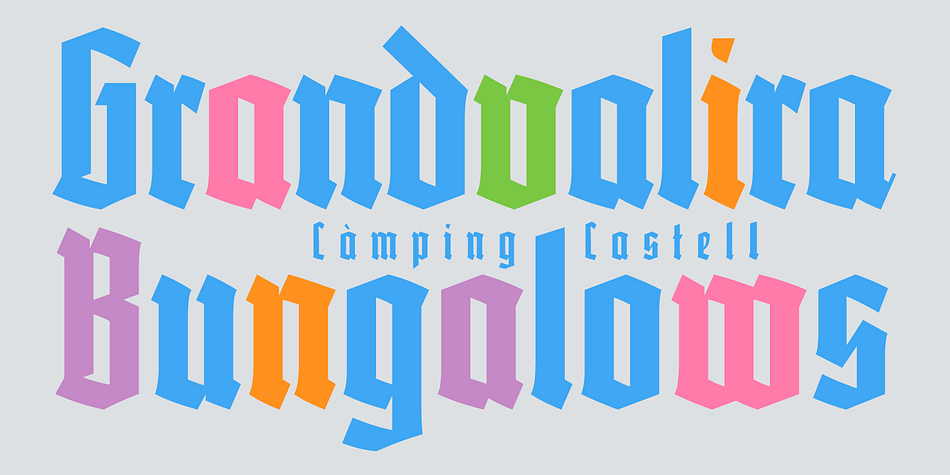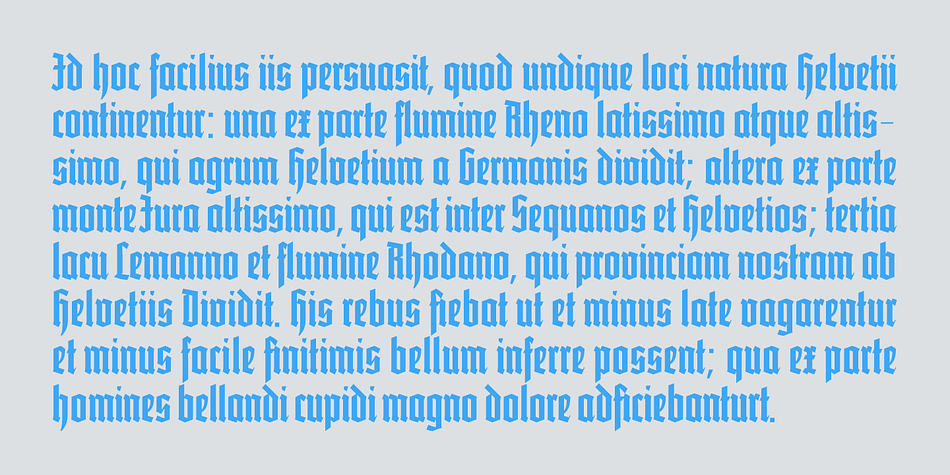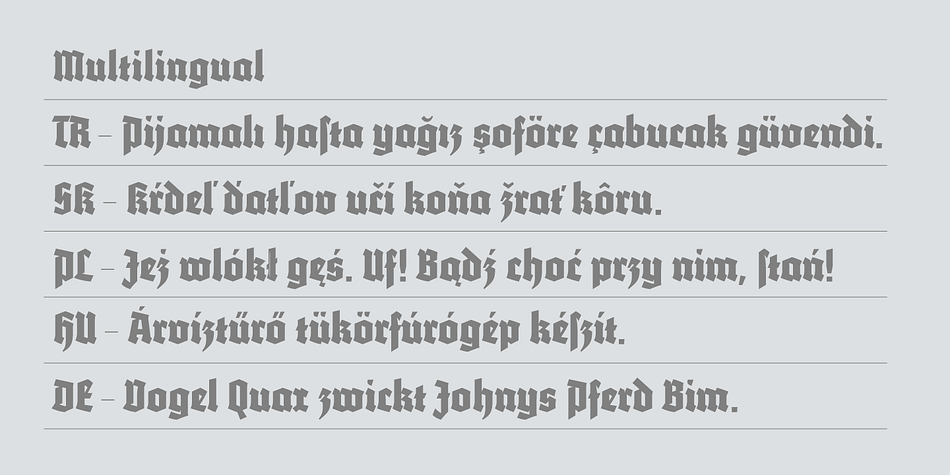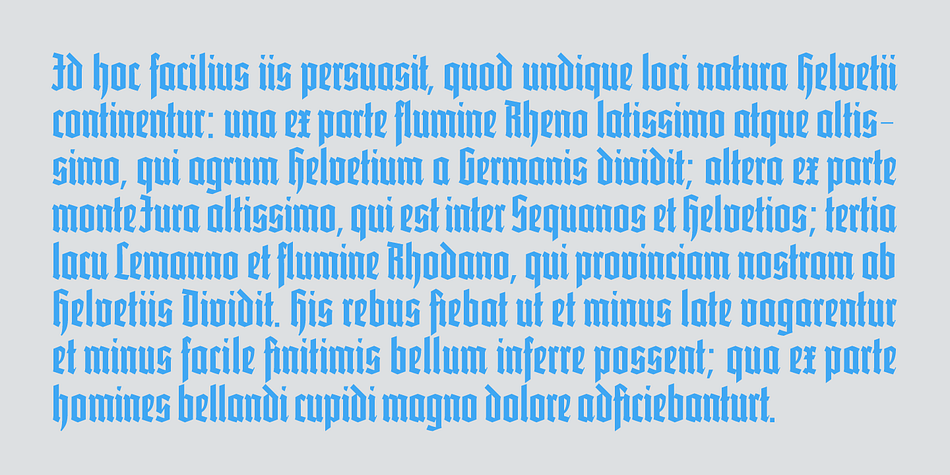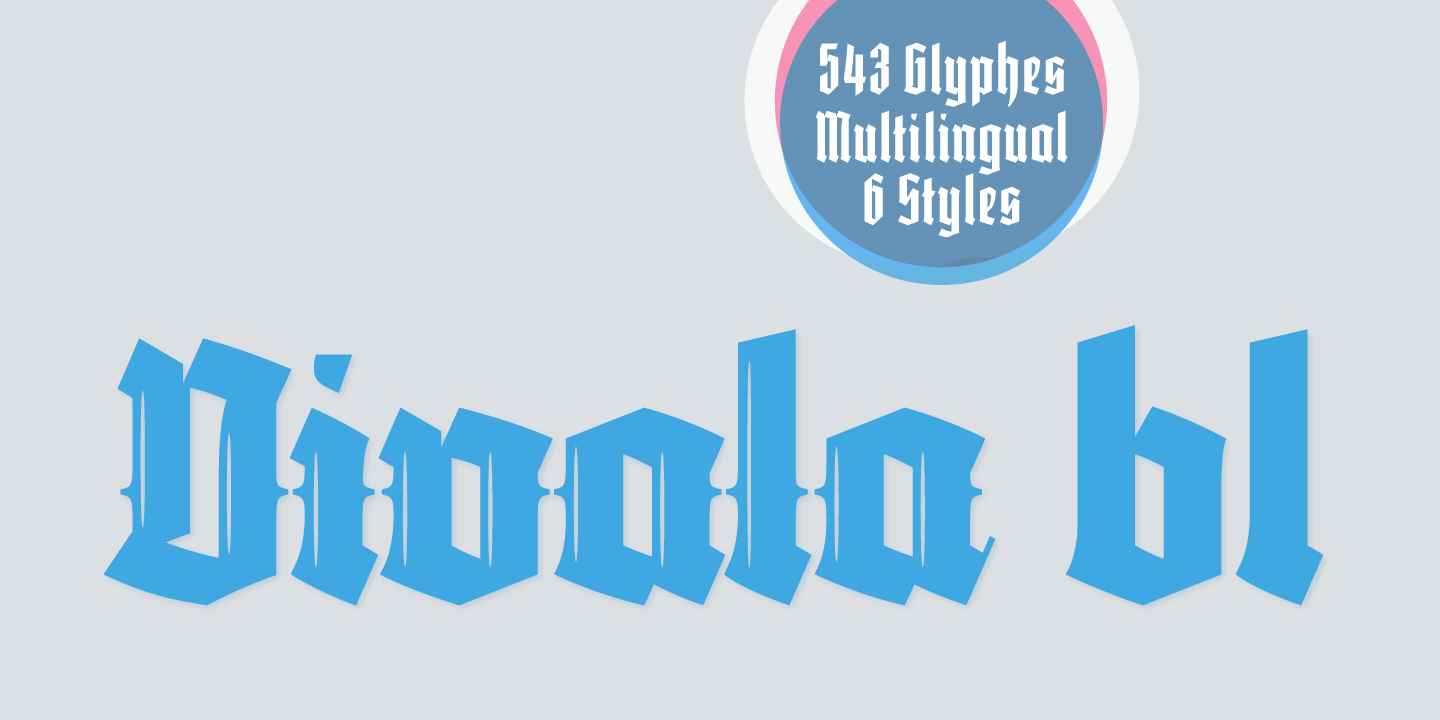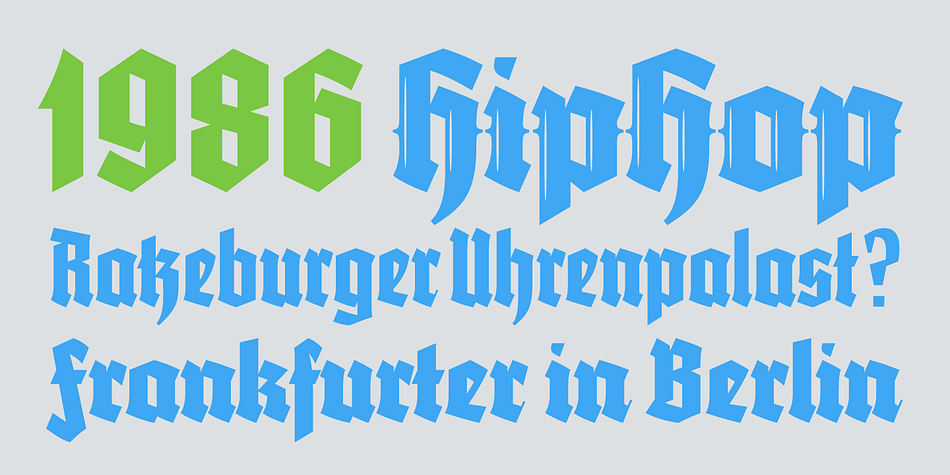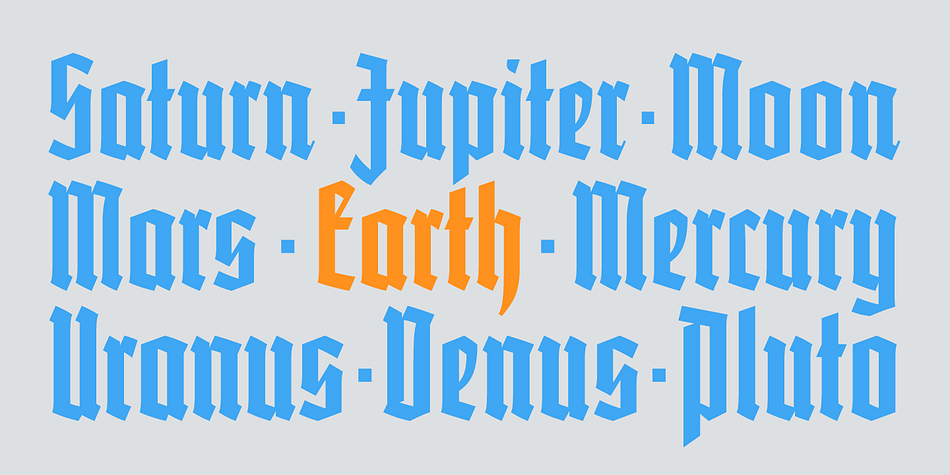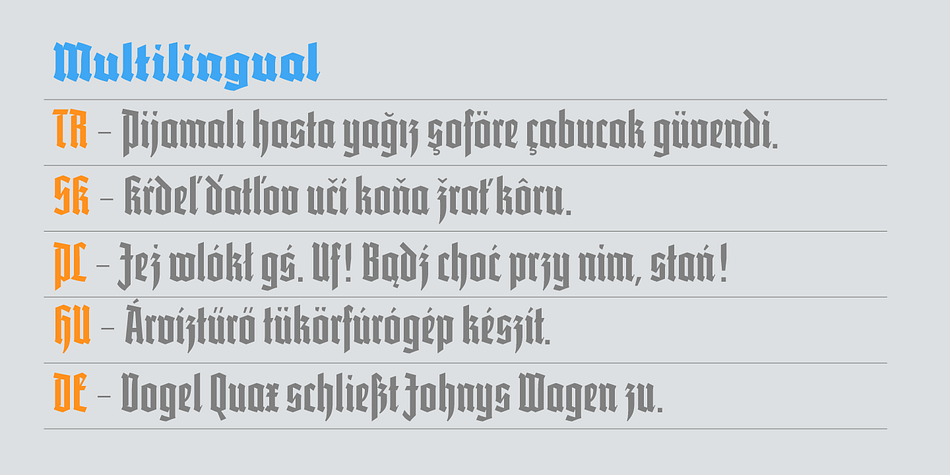
Vivala bl
Designed by Johannes Hoffmann, Vivala bl is a blackletter font family. This typeface has six styles and was published by Johannes Hoffmann.
Vivala bl has a high black ratio that supports a compact typographic style. It is particularly suitable for decorative typesetting, for example, for posters, logos, and book illustrations. Complementing the ornamental style, Black Letter has a narrow style that works well for smaller type sizes. And it is equipped with various contextual alternates and ligatures.